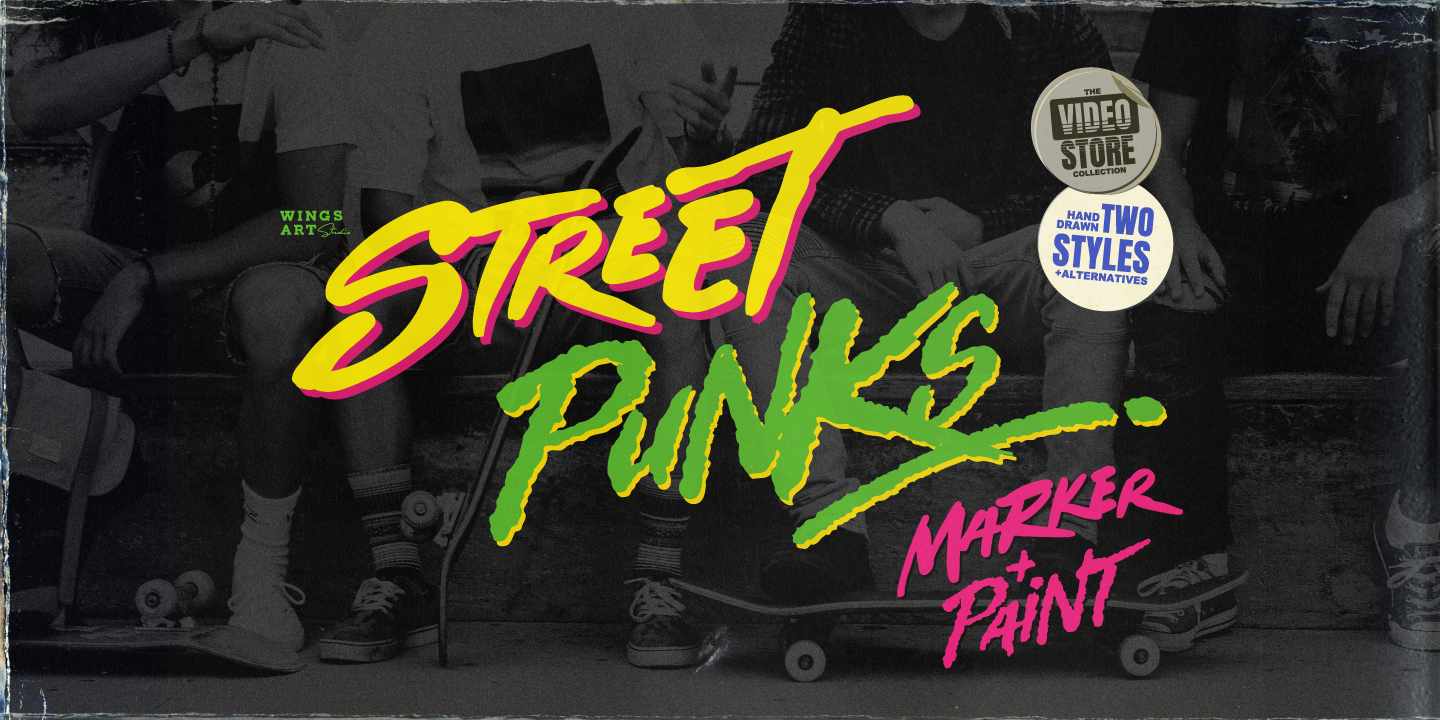
Street Punks Font is perfect for underground music venue branding, alternative clothing store signage, skateboard company logos, urban art gallery exhibitions, independent record label materials, street festival promotions, graffiti-inspired design projects, and rebellious youth culture marketing.
Street Punks Font is exciting because it channels the raw energy and defiant spirit of counterculture movements with its aggressively styled letterforms that seem to scream rebellion against conformity and corporate control. The typeface embodies the uncompromising authenticity of street culture and punk rock ethos, creating an immediate sense of underground credibility and anti-establishment attitude that resonates with audiences who refuse to be silenced.
Street Punks Font family includes Regular, Bold, Condensed, and Distressed variants, complemented by urban-inspired textures and anarchist decorative elements, offering designers authentic typography tools for creating communications that honor street culture while maintaining the raw edge of genuine punk aesthetics.
Whether you're developing an independent music label's brand identity, designing underground event materials, or creating authentic street culture content, Street Punks Font Free Download provides unmatched rebellious authenticity and urban appeal. This powerful typeface perfectly captures the essence of DIY culture and anti-establishment values while maintaining necessary readability for contemporary applications. The font's aggressive character variations and punk rhythm make it particularly effective for brands that celebrate individualism, creative freedom, and the kind of authentic rebellion that challenges mainstream culture. Alternative music and street culture professionals consistently choose Street Punks Font when projects require typography that communicates resistance, authenticity, and the kind of uncompromising spirit that defines true punk culture, making it indispensable for underground music branding, alternative fashion marketing, and any application where rebellious typography can capture the fierce independence of street movements and the enduring power of youth culture that refuses to conform to society's expectations and demands genuine artistic expression.